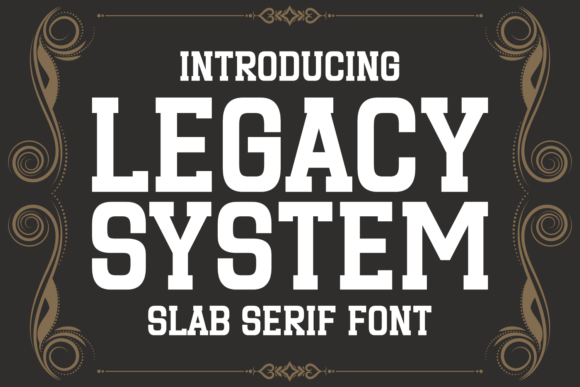
Legacy System: A Bold, Versatile Display Font for Dynamic Design
Legacy System is a robust display font designed to capture the essence of classic sports insignia and vintage university visuals. With its clear-cut structure and block format, it exudes a commanding presence that can elevate any design project. This font is ideal for those seeking a strong, assertive typeface that conveys professionalism and originality.
What Is Legacy System?
Legacy System is a versatile display font that features uppercase characters, numerals, a range of symbols, and multilingual support. Its design draws inspiration from traditional sports and academic logos, making it a powerful tool for creating standout visuals. The font’s bold, assertive style makes it particularly well-suited for team logos, posters, merchandise, and personalized t-shirts.
The font’s structure is clean and straightforward, ensuring readability even at smaller sizes. Its block format provides a sense of strength and authority, which can be especially effective in branding and marketing materials. Whether used in print or digital formats, Legacy System maintains its impact and clarity.
Why Consider Legacy System?
Designers and creators may find Legacy System appealing for several reasons. Its bold aesthetic aligns with the visual language of sports teams, universities, and other organizations that rely on strong, recognizable identities. The font’s versatility allows it to work across multiple languages, making it a practical choice for international projects.
For those looking to create a unique, professional look, Legacy System offers a distinctive alternative to more generic sans-serif or serif fonts. Its ability to convey a sense of tradition and authority can be particularly valuable in contexts where heritage and identity are important factors.
Benefits and Tradeoffs
One of the key benefits of Legacy System is its strong visual presence. The font’s boldness ensures that it stands out in a variety of applications, from signage to digital interfaces. Its multilingual capabilities also make it a practical choice for designers working on global projects.
However, the font’s blocky structure may not be suitable for all types of content. In situations where subtlety or fluidity is preferred, Legacy System might appear too rigid or heavy. Additionally, while it works well in large-scale designs, it may not be the best choice for body text due to its limited character set and lack of lowercase options.
Situations Where Legacy System Excels
Legacy System is particularly effective in scenarios where a strong, assertive visual identity is needed. For example, it can be an excellent choice for team logos, especially in sports or collegiate settings. Its bold appearance helps reinforce a sense of unity and pride among members or fans.
Posters, banners, and promotional materials can also benefit from the font’s commanding presence. In these contexts, Legacy System can help draw attention and communicate a message with confidence. It is also well-suited for merchandise such as t-shirts, hats, and other branded items, where a memorable and impactful design is essential.
In addition, the font’s multilingual support makes it a viable option for international brands or organizations that require consistent typography across different regions. This can be especially useful for businesses operating in multiple markets or for events with a diverse audience.
Situations Where Alternatives May Be Better
While Legacy System has many strengths, there are situations where alternative fonts may be more appropriate. For instance, if a design requires a more refined or elegant look, a serif or script font might be a better fit. These styles can provide a sense of sophistication that complements certain types of content or branding.
Similarly, in cases where readability is a top priority—such as in long-form text or user interface elements—a more legible font may be preferable. Legacy System’s focus on boldness and structure may not translate well to smaller sizes or dense blocks of text.
Additionally, for projects that require a wide range of typographic styles, such as editorial layouts or web design, a more flexible font family might be necessary. Fonts with multiple weights, styles, and language support can offer greater adaptability across different design needs.
Decision-Making Insights
When deciding whether to use Legacy System, it’s important to consider the specific goals of the project. If the objective is to create a strong, memorable visual identity, then the font’s bold characteristics can be a significant asset. However, if the focus is on subtlety, flexibility, or readability, other options may be more suitable.
By carefully evaluating the advantages and limitations of Legacy System, designers can determine whether it aligns with their creative vision and functional requirements. Whether used for branding, marketing, or personal projects, the font has the potential to leave a lasting impression when used effectively.